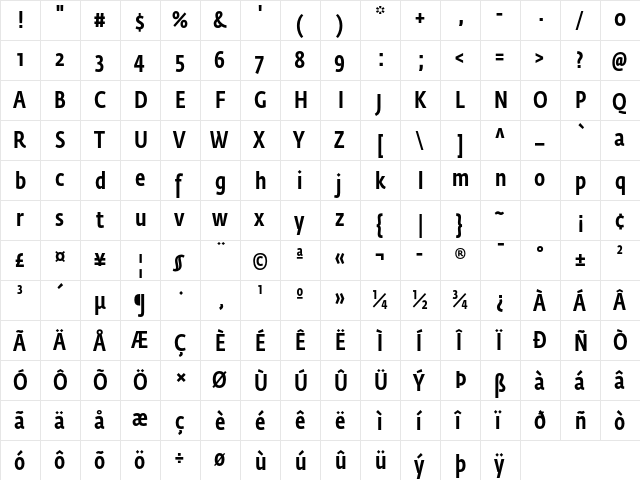
Fedra Sans Condensed Std Medium
| Foundry | Typotheque type foundry |
| Designer | Peter Bilak https://www.typotheque.com) |
Design Context for Fedra Sans Condensed Std Typeface
Fedra Sans Condensed Std is a composed and adaptable typeface that performs quietly and consistently across a wide range of design contexts. The condensed width makes it efficient for tight spaces without sacrificing legibility.